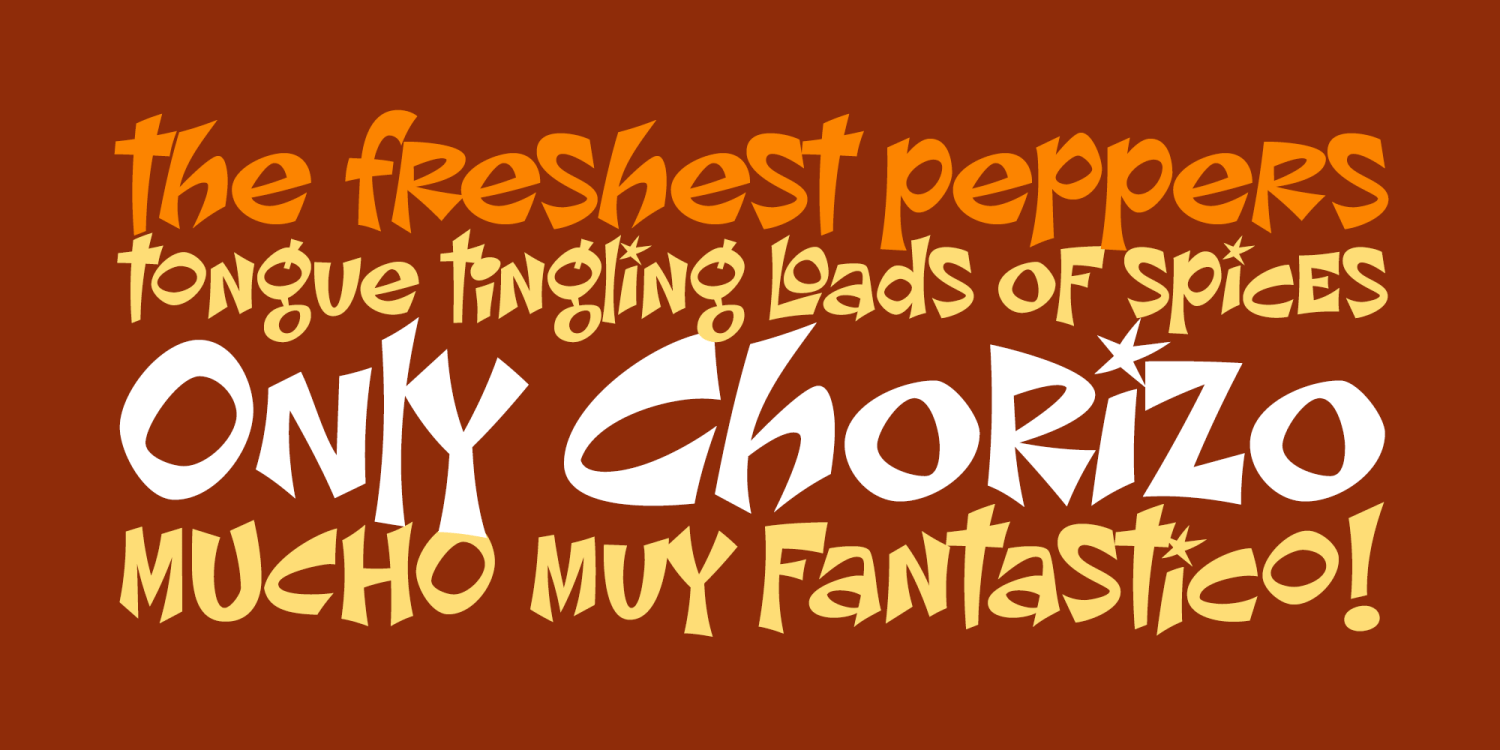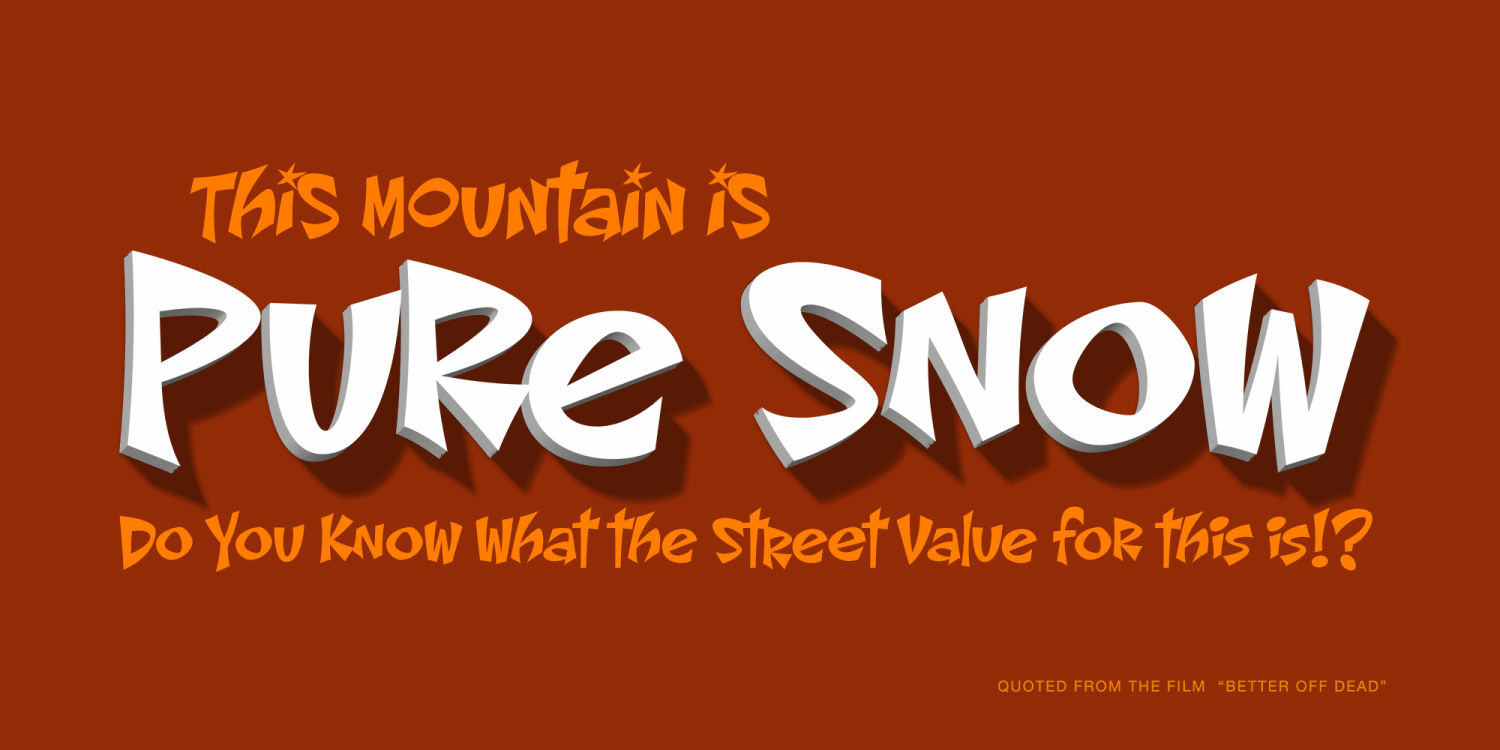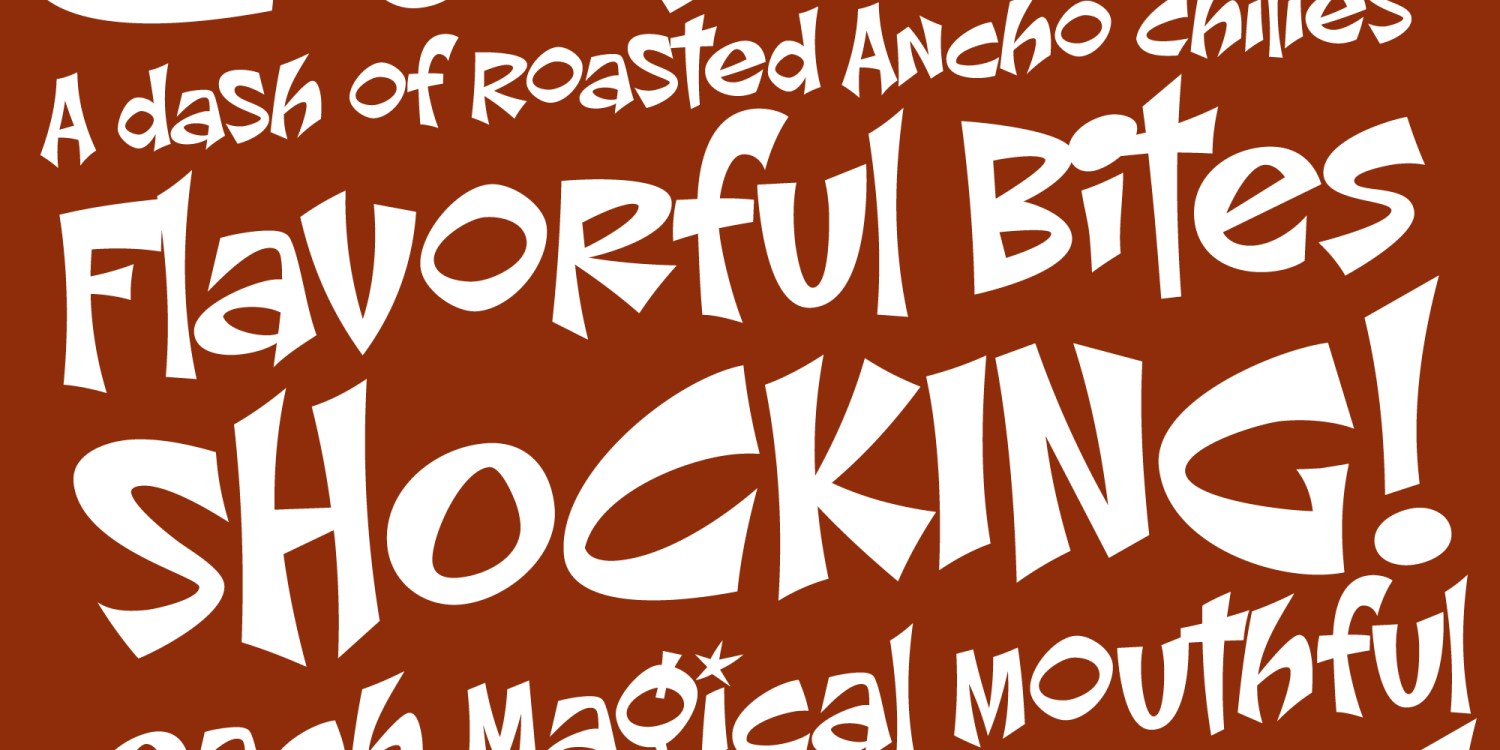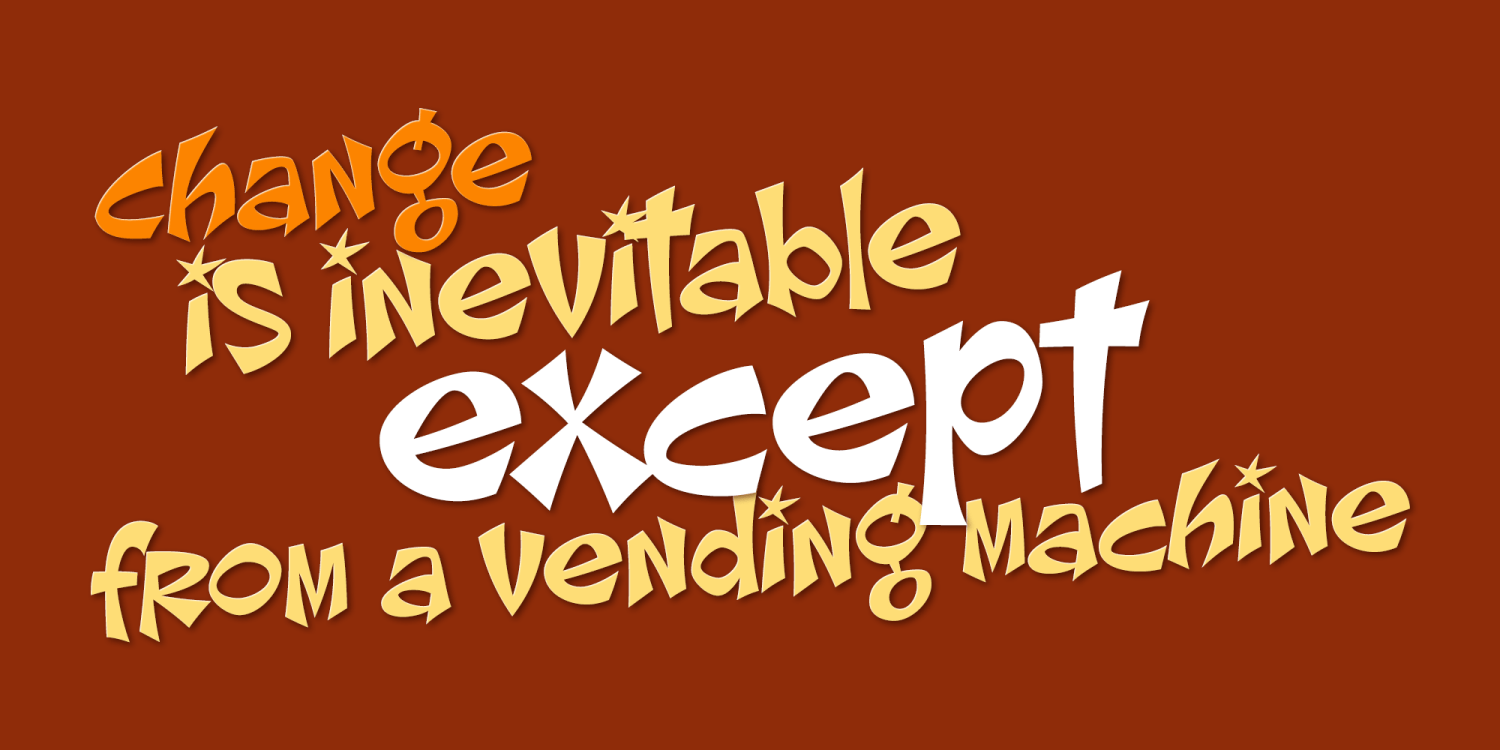
Chorizo PB
Font Family by Pink Broccoli
An offbeat typeface inspired by some of the wild lettering of comic creator Paul Coker, Jr. This typeface has that "Rankin/Bass" flavor and is tricked out with an extended language set and loads of characters in stylistic alternates & discretionary ligatures to randomize double letters and offer some interesting combinations for sets like La Li LL Lo, etc. Chorizo screams to be played with, and awaits to amuse you!